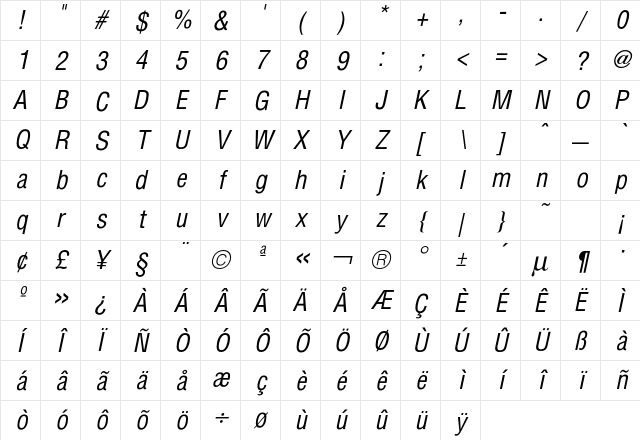
Hallmarke CondBookOblique
Style: CondBookOblique
Hallmarke Family
Hallmarke CondBookOblique
Design Context for Hallmarke
Hallmarke is a composed and adaptable typeface that performs quietly and consistently across a wide range of design contexts. The slanted form adds forward momentum and visual energy. Its narrow stance lets it pack a punch even in space-constrained designs.
Pro Tip: Use Hallmarke for emphasis, pull quotes, and subheadings where its slanted energy can add rhythm to the layout.